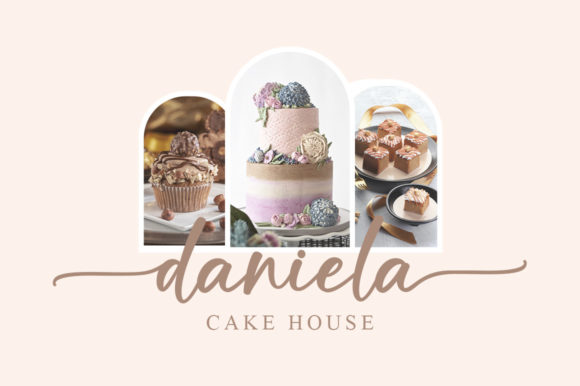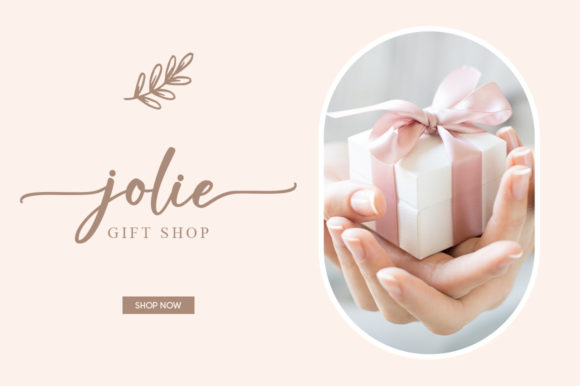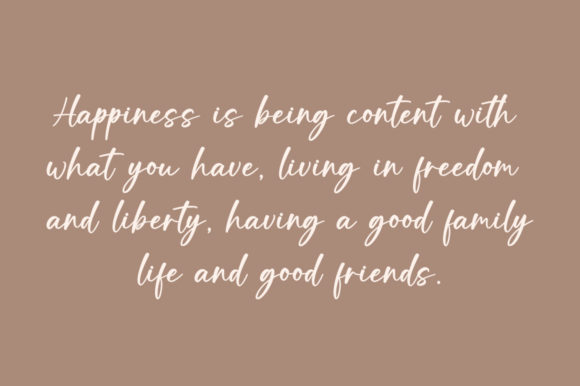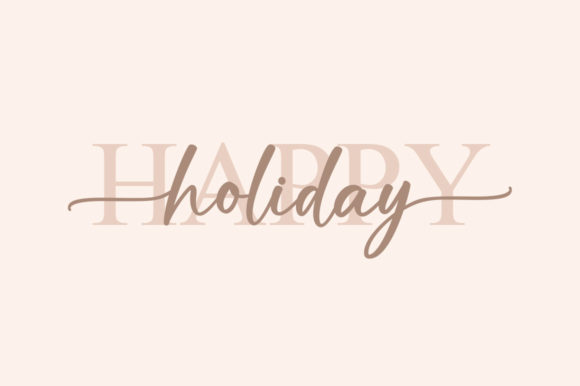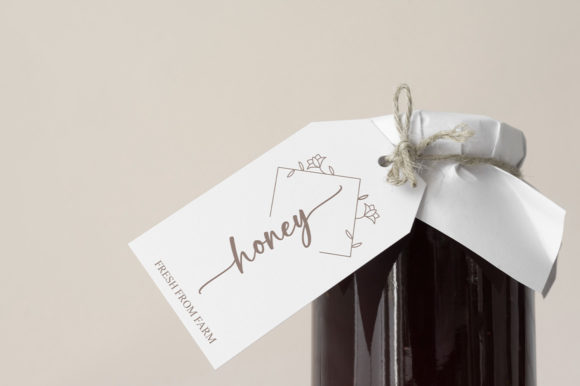
Cookies Cream Font: Elevate Your Designs with Elegance and Sophistication
Are you a designer or crafter looking for a font that exudes elegance and sophistication? Look no further than the Cookies Cream Font. This stylish script font is perfect for creating beautiful wedding invitations, thank you cards, quotes, greeting cards, logos, business cards, and more. With its PUA encoding, you can easily access all the glyphs and swashes to take your designs to the next level.
What Makes Cookies Cream Font So Special?
Cookies Cream Font is a stunning script font that boasts an incredibly elegant and refined aesthetic. Its beautiful letterforms and flowing lines make it perfect for designs that require a touch of sophistication and glamour. Whether you’re creating wedding stationery, branding materials, or social media graphics, this font is sure to impress.
One of the standout features of Cookies Cream Font is its PUA (Private Use Area) encoding. This means that you can access all the glyphs and swashes with ease, giving you complete creative control over your designs. With PUA encoding, you can easily insert special characters, ligatures, and swashes to add an extra layer of elegance and sophistication to your work.
Cookies Cream Font is an incredibly versatile font that can be used for a wide range of design projects. Here are just a few ideas to get you started:
- Wedding Invitations: Create beautiful and elegant wedding invitations that set the tone for the big day.
- Thank You Cards: Add a personal touch to your thank you cards with this stunning script font.
- Quotes and Posters: Use Cookies Cream Font to create eye-catching quotes and posters that are sure to inspire.
- Greeting Cards: Create beautiful greeting cards for special occasions such as birthdays, anniversaries, and holidays.
- Logos and Branding: Use Cookies Cream Font to create a sophisticated and elegant logo that reflects your brand’s personality.
- Business Cards: Elevate your business cards with this stylish script font that exudes professionalism and elegance.
Why Choose Cookies Cream Font?
So why choose Cookies Cream Font over other script fonts on the market? Here are just a few reasons:
- Elegant and Sophisticated: Cookies Cream Font boasts an incredibly elegant and refined aesthetic that’s perfect for designs that require a touch of sophistication.
- PUA Encoded: With PUA encoding, you can easily access all the glyphs and swashes to take your designs to the next level.
- Versatile: Cookies Cream Font can be used for a wide range of design projects, from wedding stationery to branding materials.
- Easy to Use: This font is incredibly easy to use, even for designers who are new to script fonts.
Tips for Using Cookies Cream Font
Here are a few tips for using Cookies Cream Font to get the most out of this beautiful script font:
- Pair with Other Fonts: Cookies Cream Font pairs beautifully with other fonts, such as sans-serif fonts and serif fonts.
- Experiment with Swashes: Don’t be afraid to experiment with the swashes and glyphs to add an extra layer of elegance and sophistication to your designs.
- Use for Headings: Cookies Cream Font is perfect for headings and titles, but can also be used for body text.
In conclusion, Cookies Cream Font is a stunning script font that is perfect for designers and crafters looking to add a touch of elegance and sophistication to their designs. With its PUA encoding and versatile design, this font is sure to become a favorite in your design arsenal.